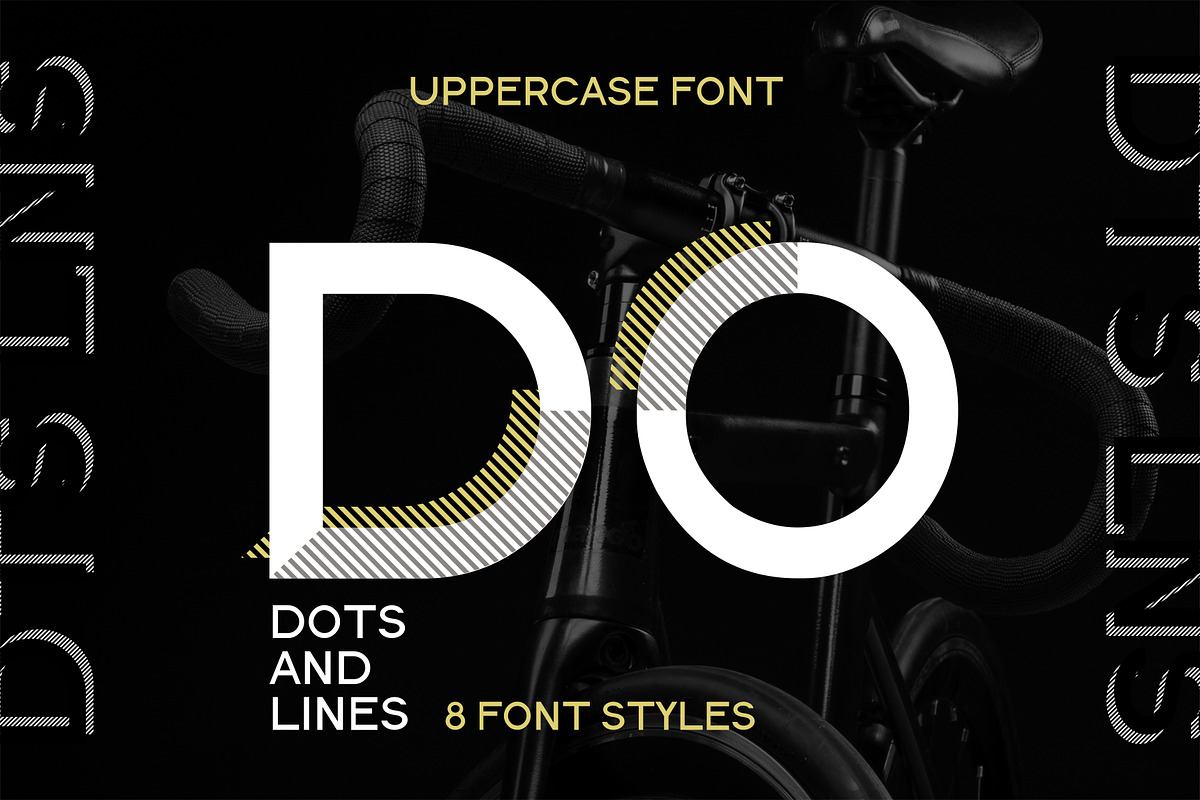
Dots Lines Display Font (8 Styles) Free Download is a unique and futuristic typeface that combines minimalism with geometric design. Featuring 8 distinctive styles built around dotted and linear constructions, this display font is perfect for tech branding, digital artwork, science-themed layouts, posters, and experimental typography.
Each style in the Dots Lines family offers a fresh take on form and structure—ranging from clean outlines to abstract dot grids. This flexibility allows designers to explore creative contrasts and layered compositions across a variety of platforms.
Stand out with modern precision and digital flair using Dots Lines Display Font (8 Styles) Free Download. Try the demo version today and experiment with this visually striking and versatile font family.